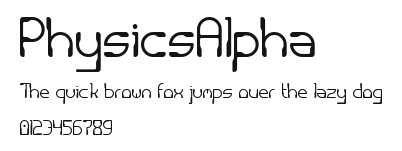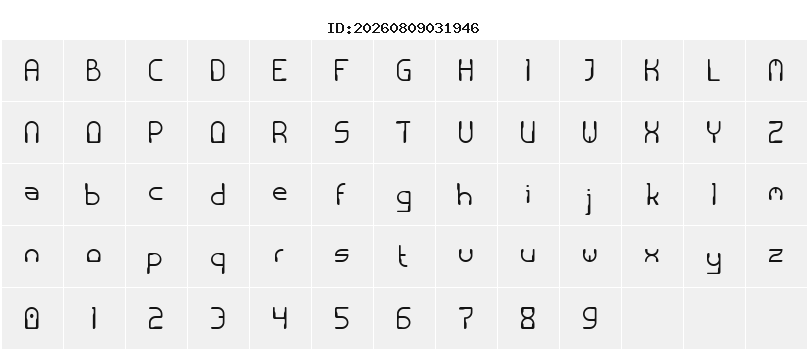
• Font Name: PhysicsAlpha
• Full Font Name: PhysicsAlpha
• PostScript Name: PhysicsAlpha
About PhysicsAlpha.ttf
PhysicsAlpha.ttf is a modern, elegant sans-serif font designed for ultimate readability and visual harmony. Perfect for branding, headlines, web design, and print materials.